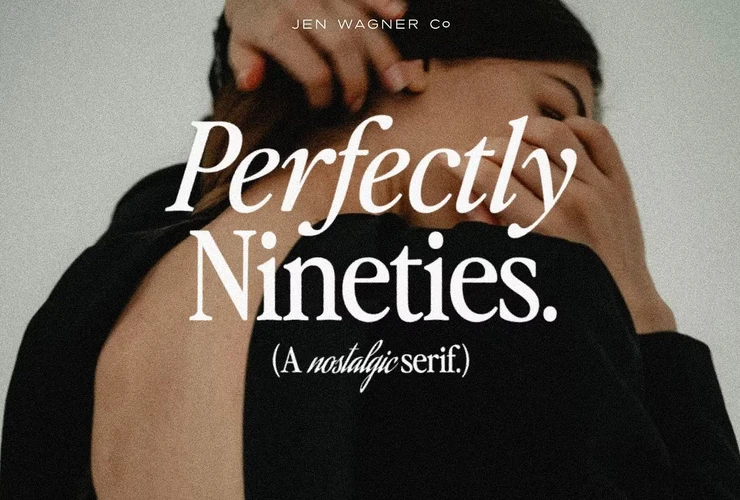
About Perfectly Nineties: A Nostalgic Serif Revival
Welcome back to the era of tight jeans, grunge music, and classic serifs. Introducing Perfectly Nineties – a brand new serif typeface with all the nostalgic vibes of the 80s and 90s. This typeface is perfect for modern projects with a retro twist, offering versatility in both large and small settings.
A Typeface for All Occasions
Perfectly Nineties shines as both display and body text, with clean and readable letter spacing. Adjust the spacing to -10 to -20 for tighter display settings.